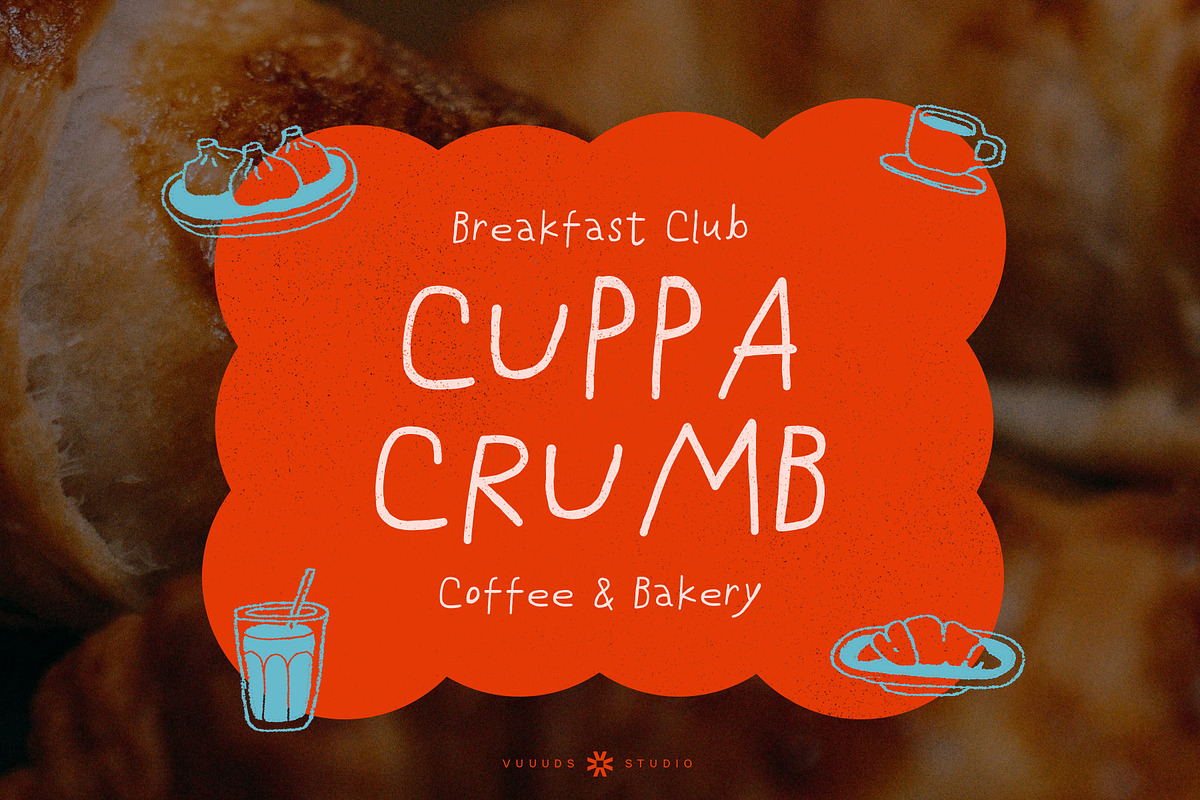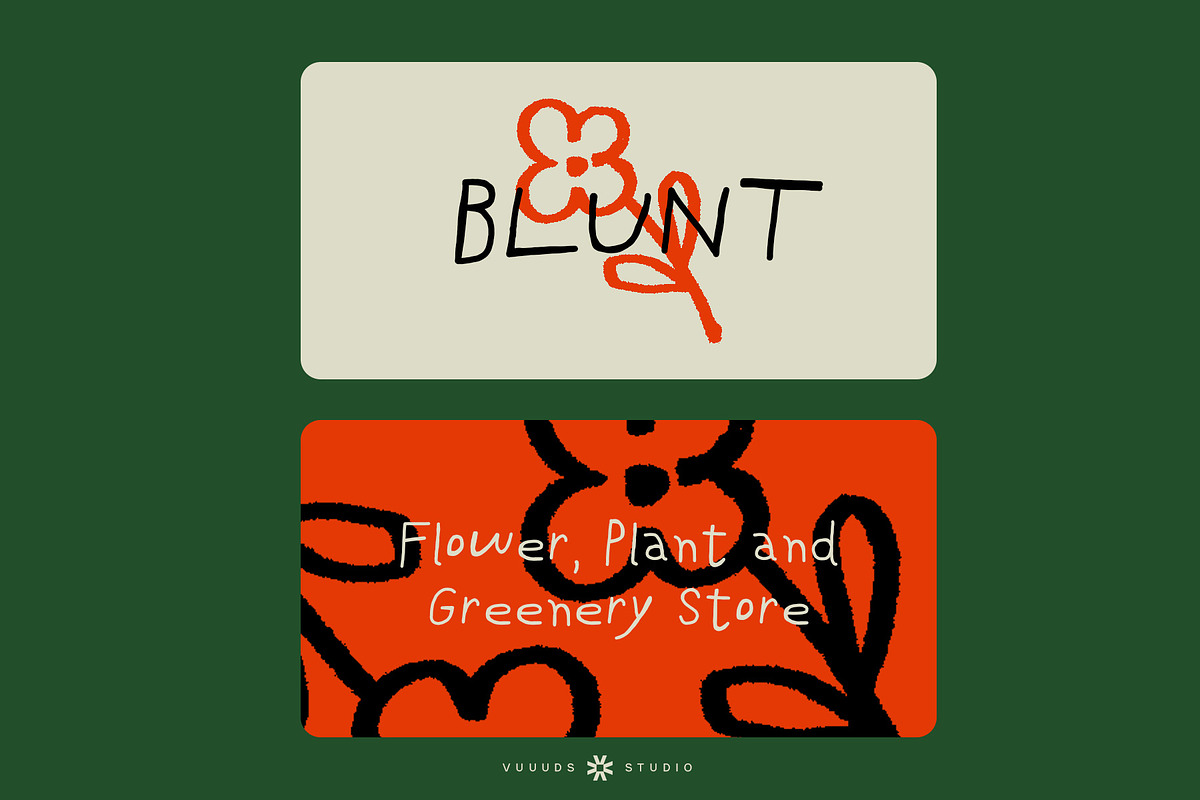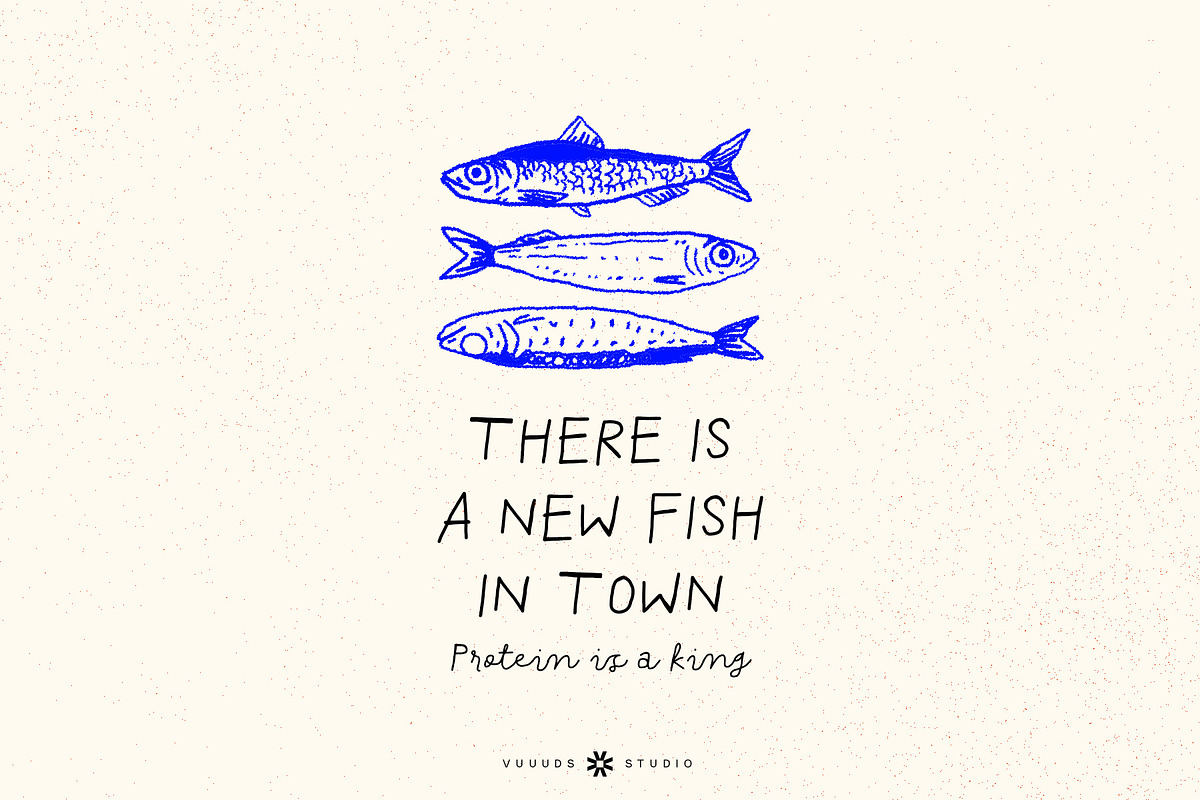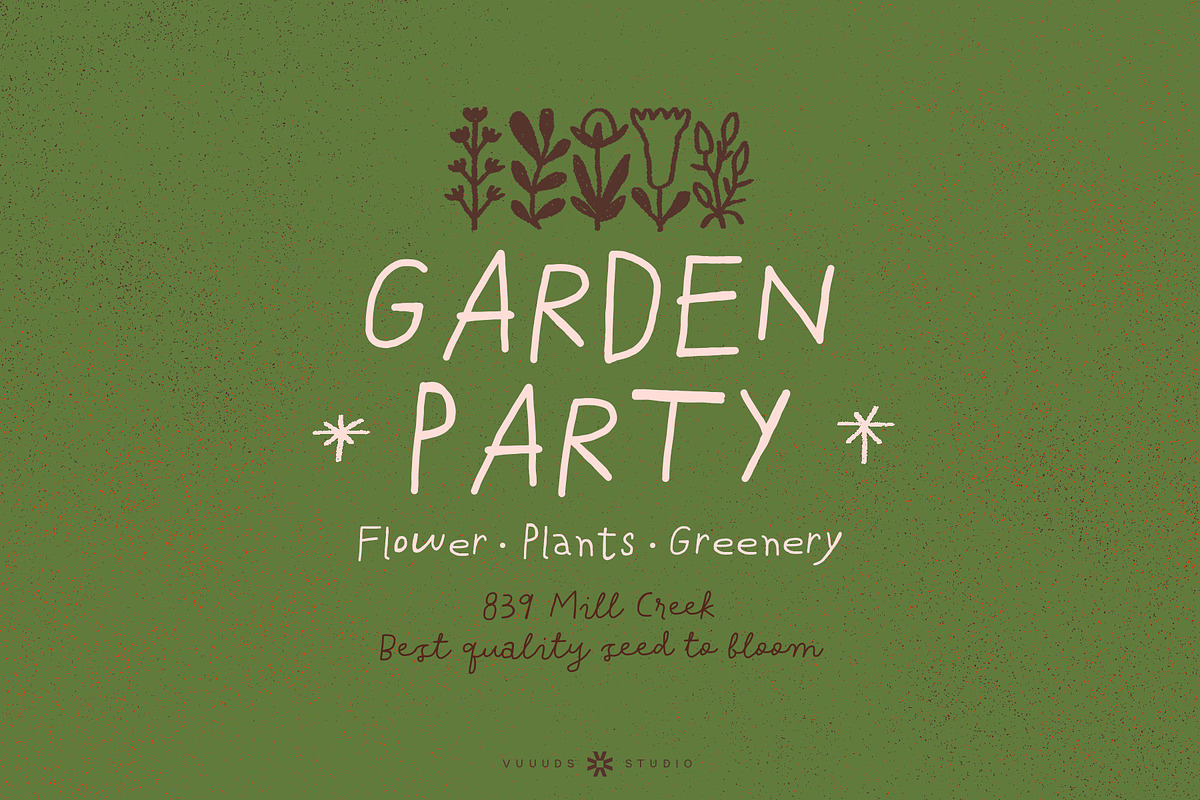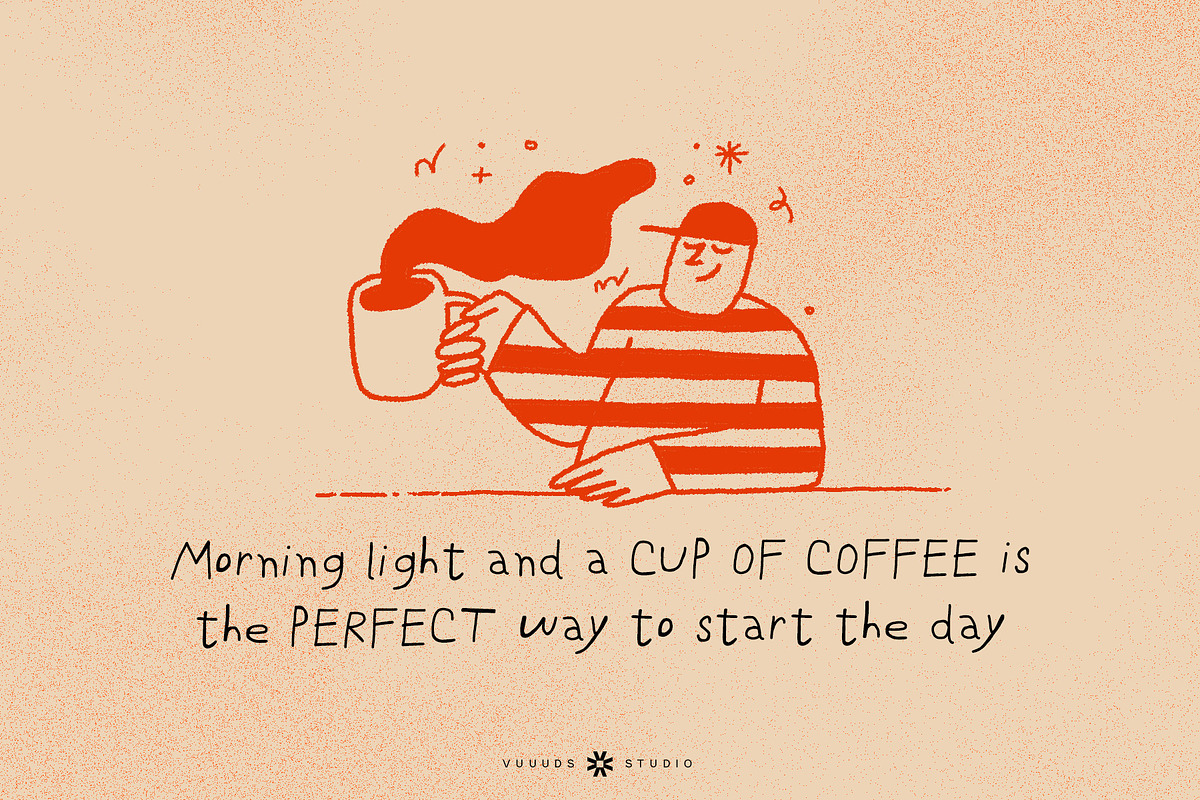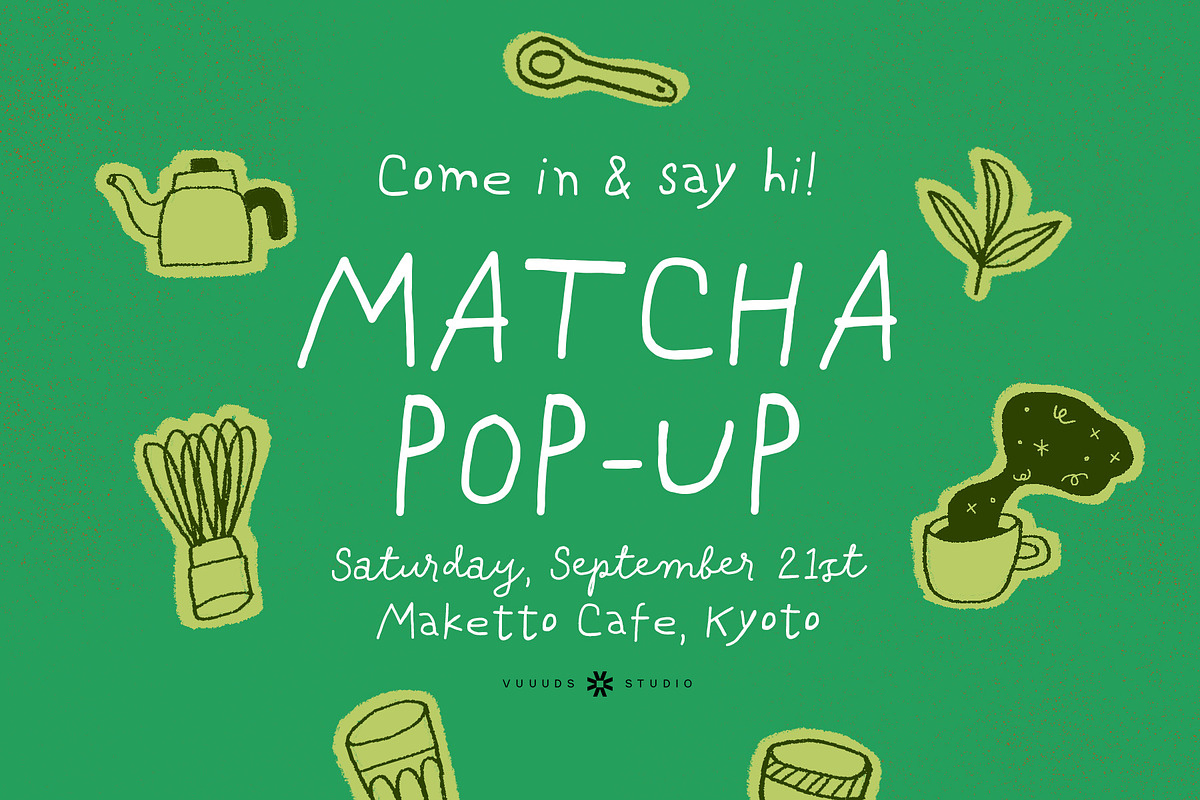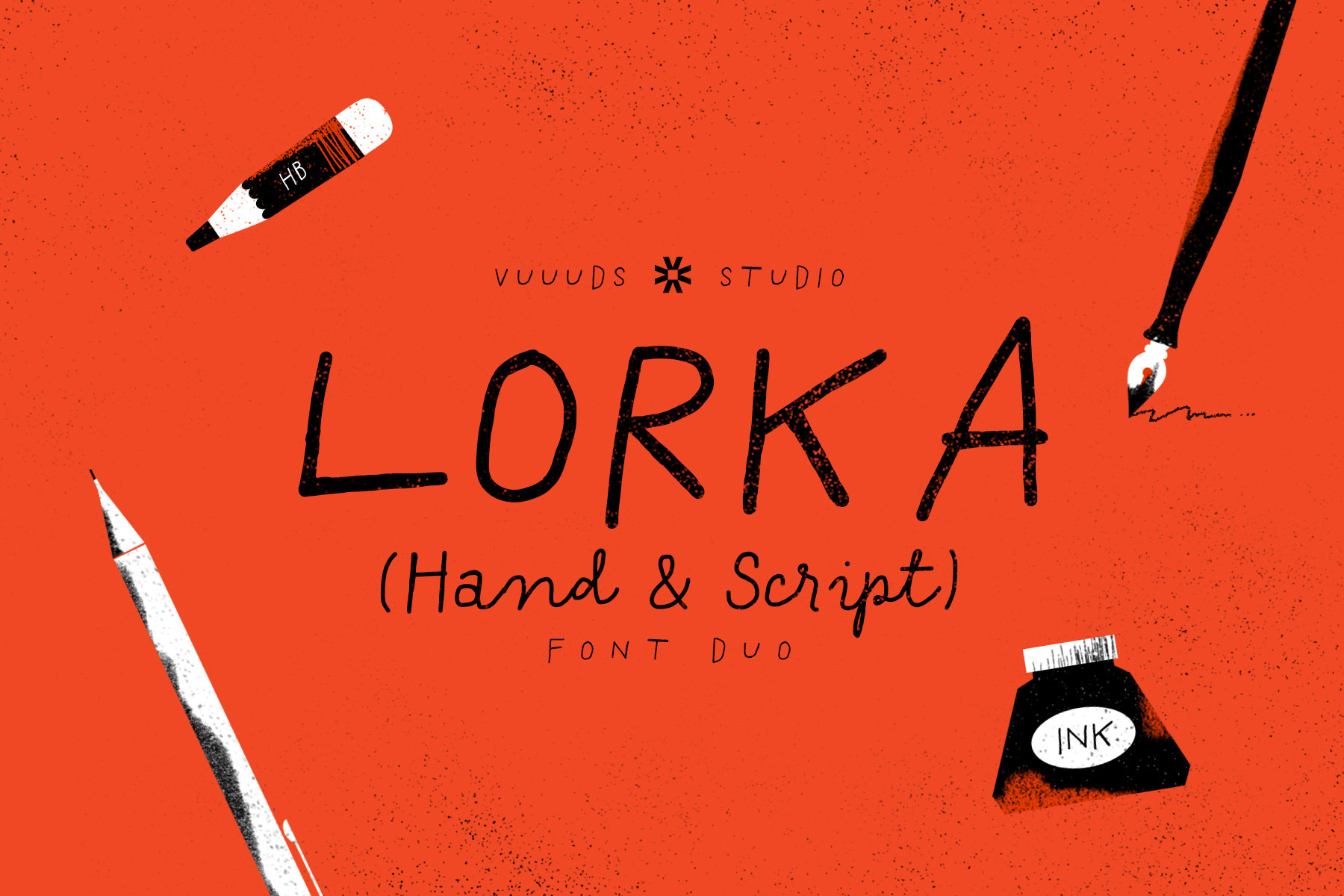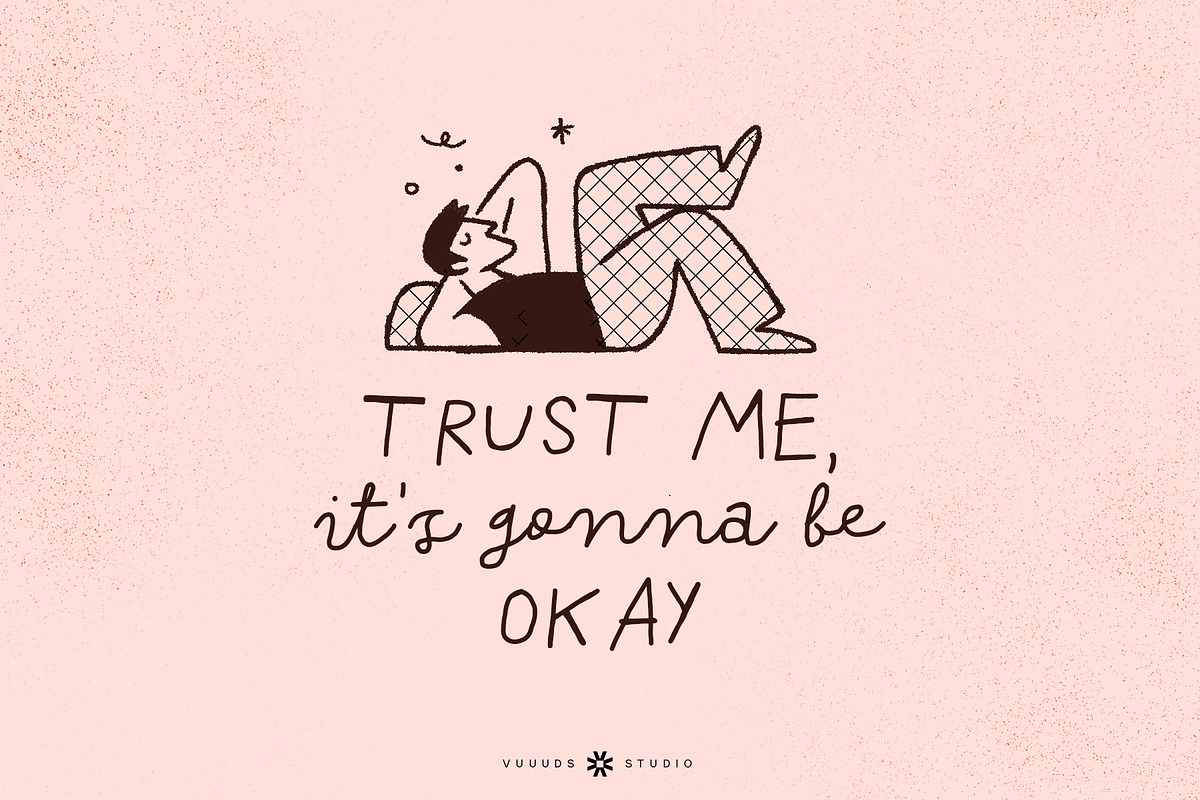
Lorka Font Duo
Introducing Lorka Font! Lorka is casual handwritten font duo, every single letters have been uniquely crafted. This font including beautiful alternate glyph. You can access the alternate glyph via Font Book (Mac user) or Windows Character Map (Windows user), I've been put the link tutorial inside the zip file. Multi languages support: ÀÁÂÃÄÅĂÆÇÈÉÊËÌÍÎÏÐÑÒÓÔÕÖØÙÚÛÜŸÝ àáâãäåăæçèéêëìíîïðñòóôõöøùúûüýÿ ȚțȘș߀£¥©®™ Thanks for looking. instagram.com/vuuuds.studio